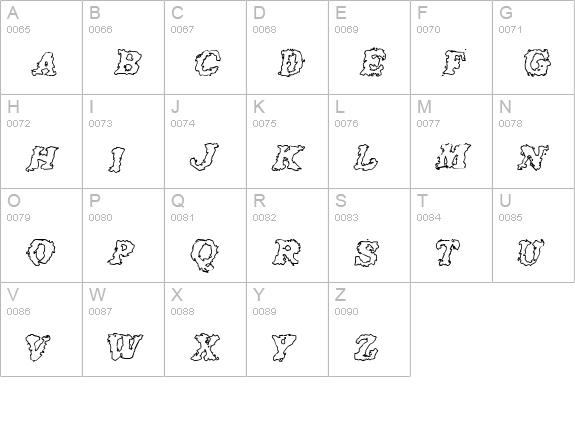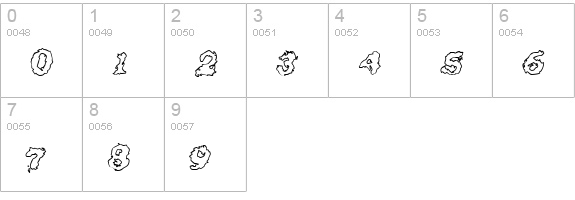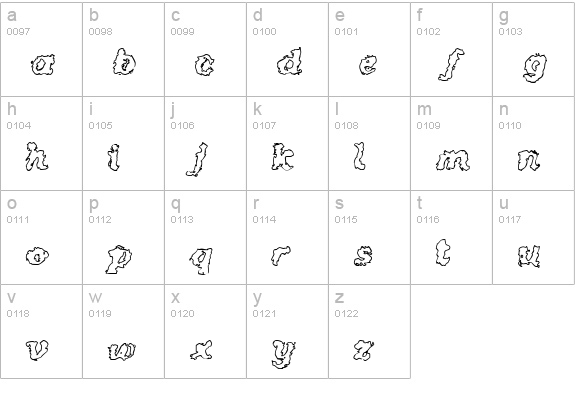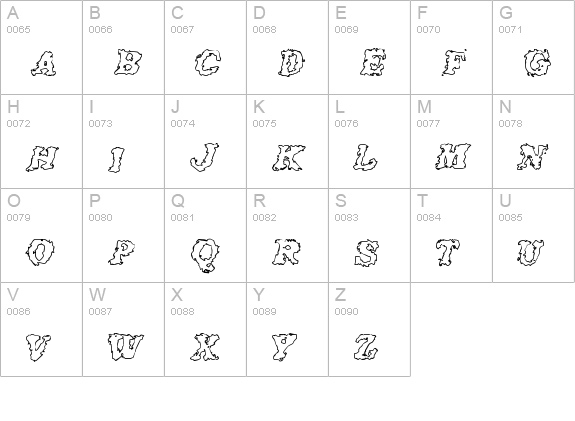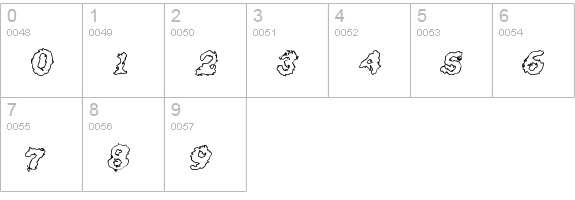
Crash Outline font is a modern and edgy typeface that is sure to make a bold statement in any design project. With its sharp lines and distinct appearance, this font exudes a sense of energy and dynamism. Perfect for headlines, posters, logos, and more, Crash Outline font is versatile and eye-catching. The best part? Crash Outline font is completely free to download at FontsMarket.com. Take advantage of this amazing offer and add a touch of creativity to your designs with this unique and striking typeface. Download Crash Outline font today and unleash your creativity!